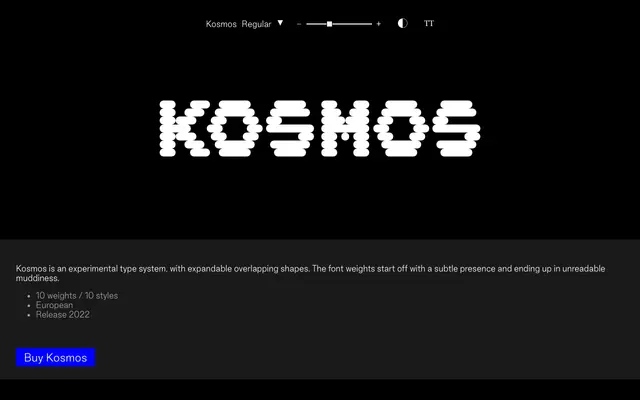
Kosmos
Good Type Foundry · 2022
An experimental display system of 10 weights built on overlapping shapes that progress from faint and subtle to a deliberately unreadable mass.
Kosmos treats weight not as a measure of stroke thickness but as a degree of overlap, starting with a light, ghostly presence and accumulating into dense, illegible muddiness at its heaviest. The ten styles are named Misty and Boggy at the lighter end, suggesting atmosphere over utility. Coverage is limited to European Latin with uppercase, lowercase, accented glyphs and standard punctuation.
Kosmos is built around overlapping, expanding shapes that intentionally dissolve into illegibility at heavier weights, placing it firmly in experimental display territory with no conventional classification equivalent.